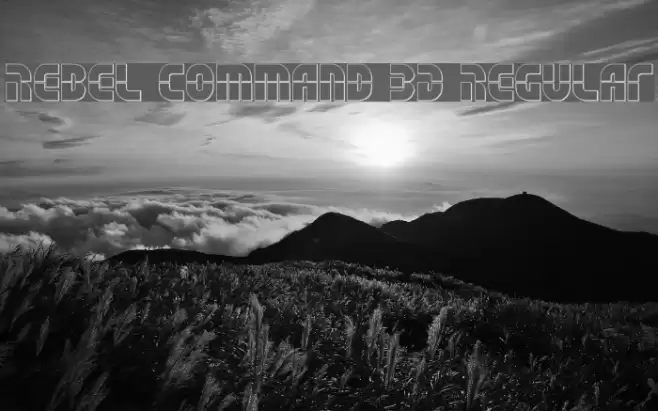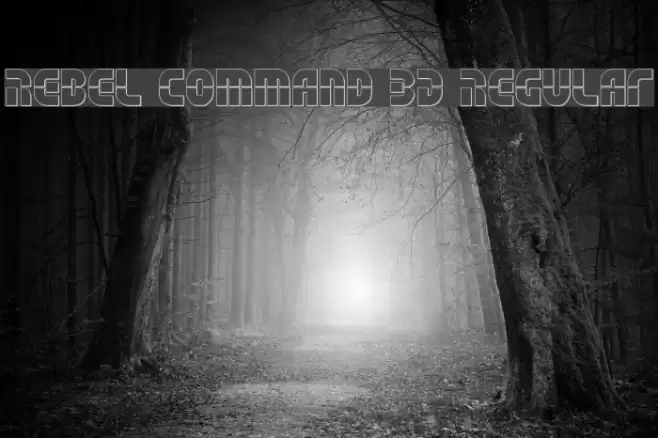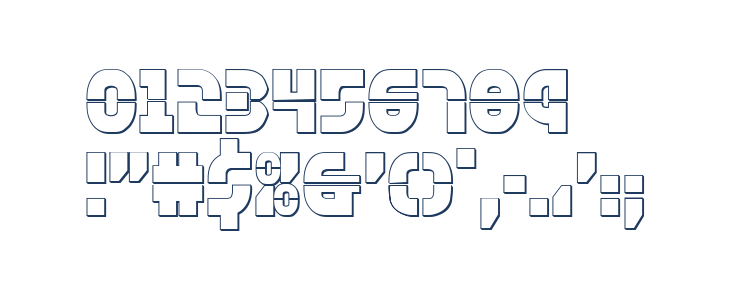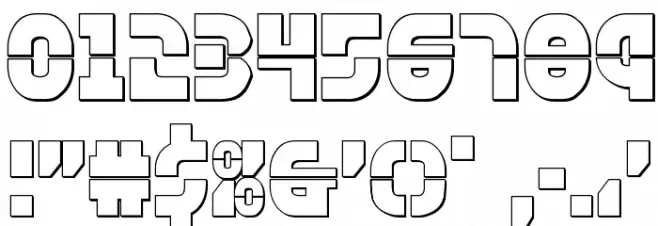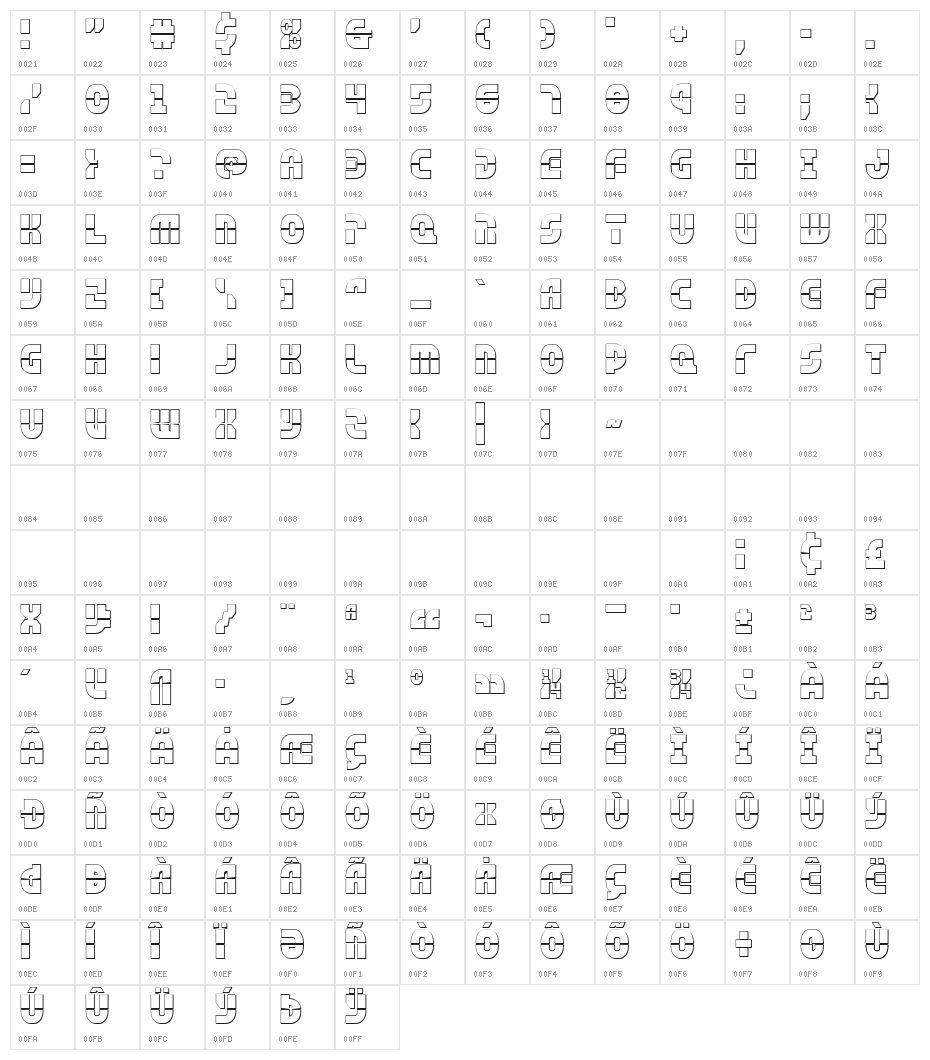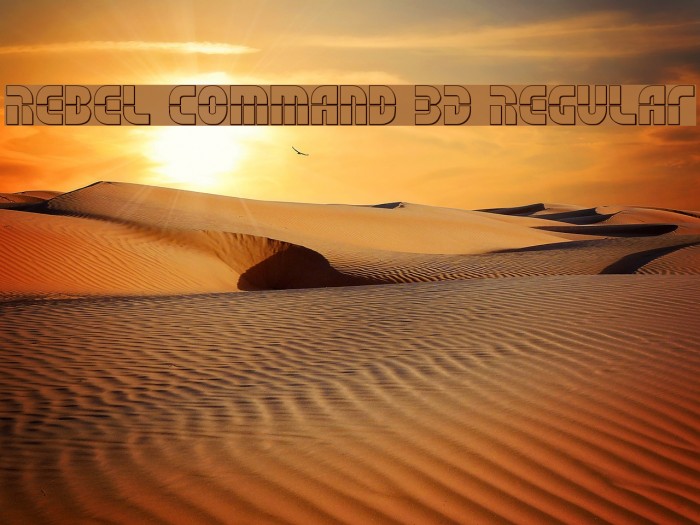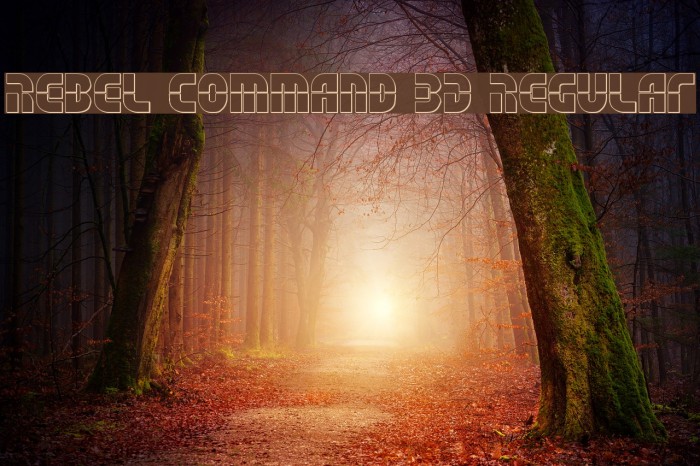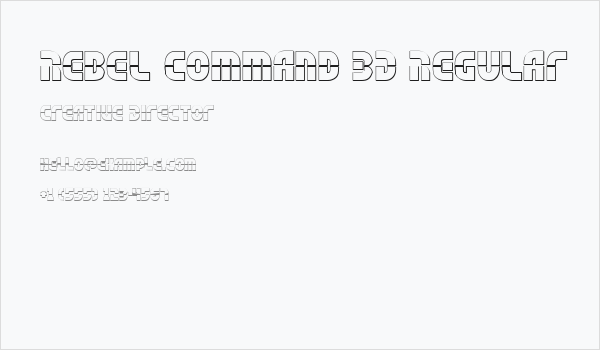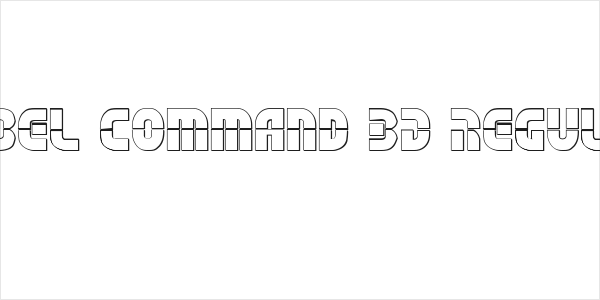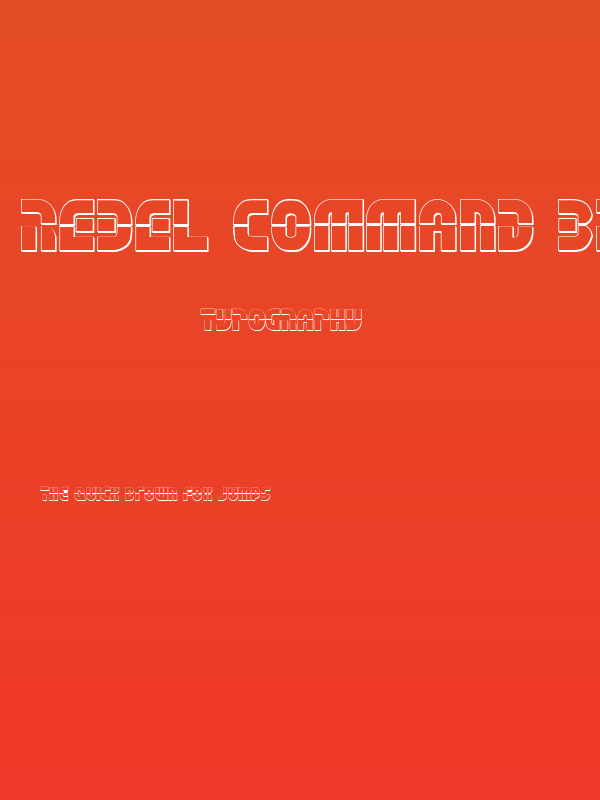
Rebel Command 3D Regular Font
Rebel Command 3D Regular Description
This font features a bold, geometric design with a three-dimensional effect. Each character is constructed with thick, block-like shapes that create a sense of depth and structure. The letters are outlined, giving them a hollow appearance, which enhances the 3D illusion. The style is futuristic and modern, making it ideal for projects that require a strong visual impact. The uniformity in the design ensures consistency across all characters, including numbers and special symbols. This font is particularly suited for creative and innovative designs, where a bold statement is needed.
A bold, geometric 3D font with a futuristic and modern style from Uncategorized fonts.